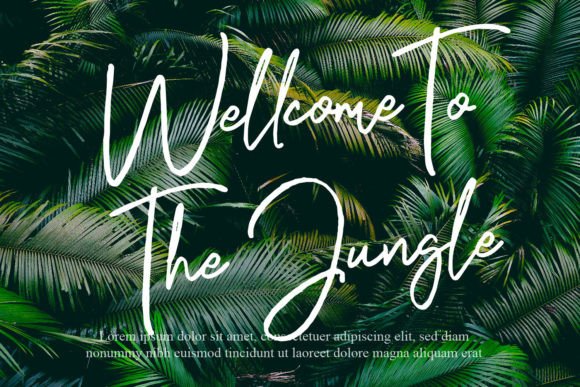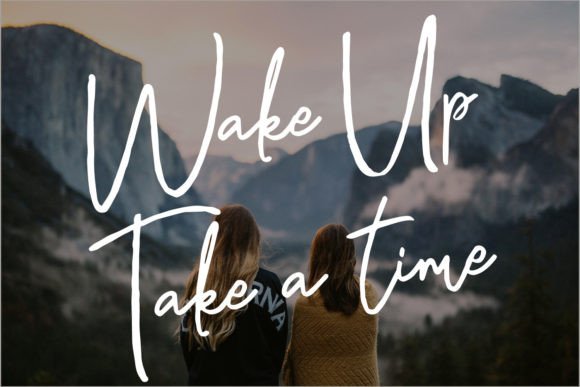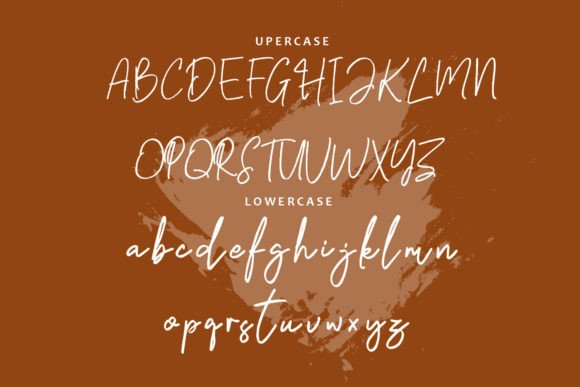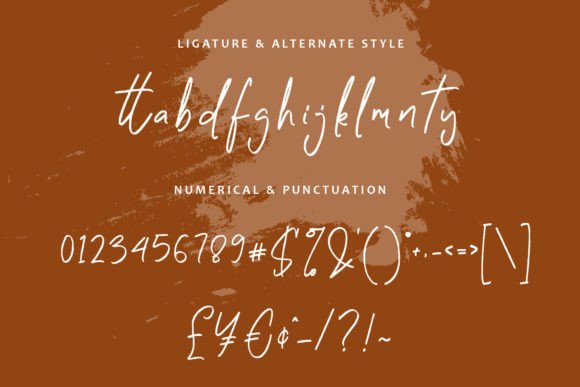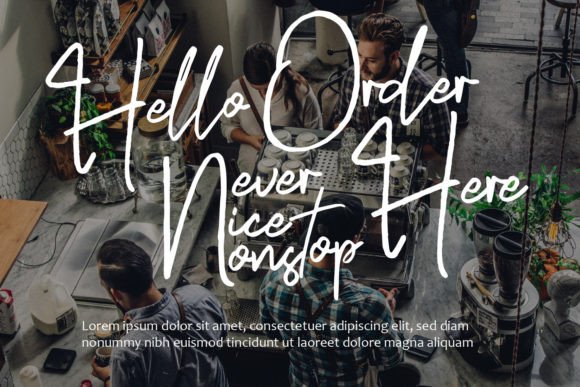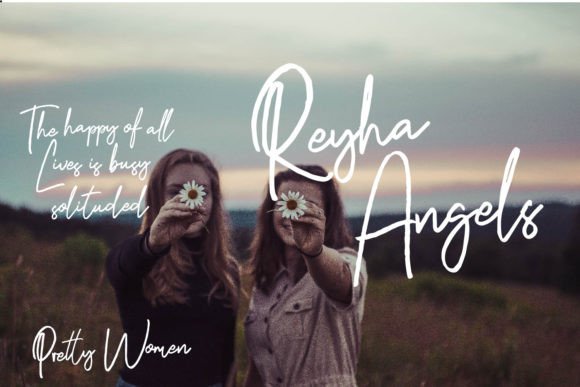
The Perfect Brushstroke: Unlocking the Power of Hogie Rough Font
Have you ever been stuck in front of your computer, staring at a blank page, trying to find the perfect font to bring your design to life? It’s a moment we’ve all been there – the frustration of searching for that elusive ‘wow’ factor, the thrill of the hunt for the perfect brushstroke. And then, it happens – you stumble upon a font that makes your heart skip a beat, a font that whispers ‘yes, this is it.’
This is where the Hogie Rough Font comes in – a delicate, elegant, and flowing handwritten font that will elevate your designs to new heights. With its beautiful and well-balanced characters, Hogie Rough Font is the perfect addition to any project, whether it’s a wedding invitation, a logo, or a marketing brochure.
For designers, Hogie Rough Font is a valuable asset – a go-to font that will add a touch of sophistication and whimsy to any design. With its versatility and timeless appeal, Hogie Rough Font is sure to become a favorite in your font collection.
Hogie Rough Font Key Features
- Unique Characteristics: Distressed texture and rough, hand-drawn feel, ideal for vintage and grunge designs
Hogie Rough Font Review
When I first laid eyes on the Hogie Rough Font, I was immediately drawn to its unique, hand-drawn feel ✨. The font’s imperfections and texture give it a natural, organic look that’s perfect for projects that need a bit of character. I also appreciate the font’s versatility, as it can be used for a wide range of applications, from logos to signage to editorial content.
- The Hogie Rough Font is incredibly expressive, making it ideal for conveying emotions and tone in your design.
- The font’s texture and imperfections add a level of depth and visual interest that’s hard to achieve with more traditional fonts ✨.
- The Hogie Rough Font is highly customizable, allowing you to fine-tune the spacing, weight, and texture to suit your specific needs.
However, I do have a few reservations about the Hogie Rough Font ⚠️. The font’s imperfections can sometimes make it difficult to read, especially at smaller sizes. Additionally, the font’s texture can be overwhelming if used in large quantities, so it’s essential to use it judiciously. Finally, the font’s unique feel may not be suitable for projects that require a more polished, professional look.
Overall, I think the Hogie Rough Font is a fantastic choice for designers looking to add some personality to their projects ✨. While it may not be suitable for every project, it’s a versatile and expressive font that’s sure to make a statement.
For the most effective use of the Hogie Rough Font, we recommend the following:
– Use it for titles and headings to add a touch of rustic charm.
– Pair it with clean, sans-serif fonts for a balanced look.
– Experiment with different font sizes and colors to create visual interest.